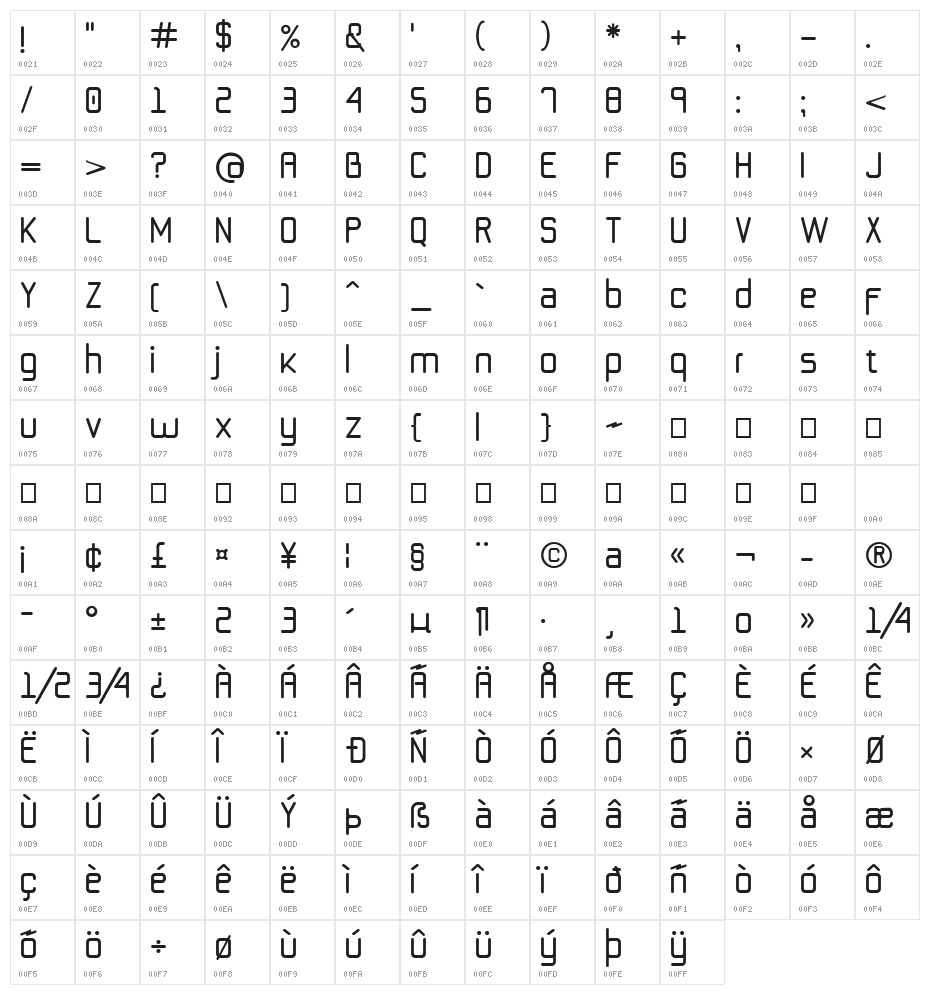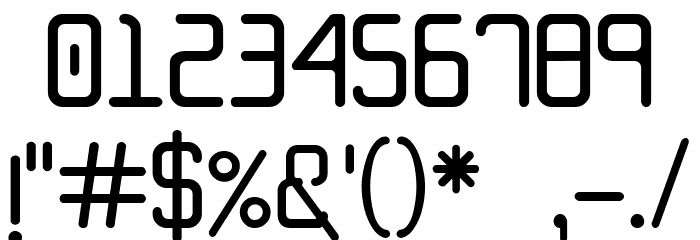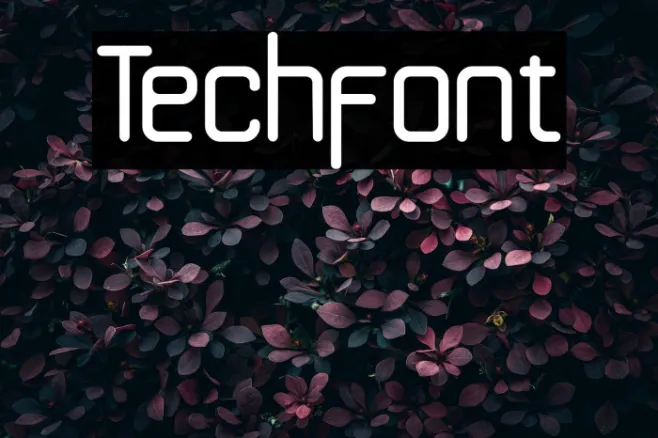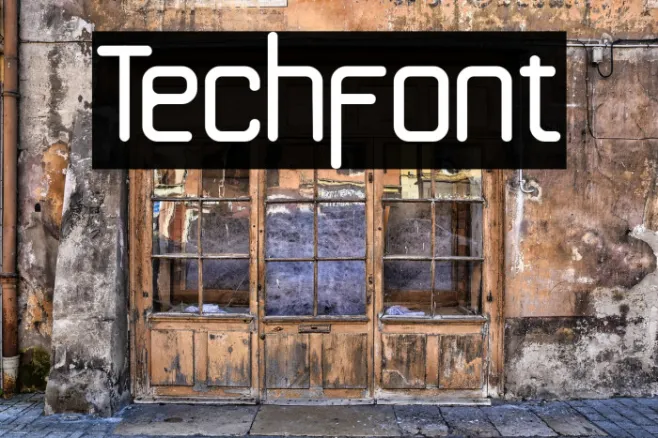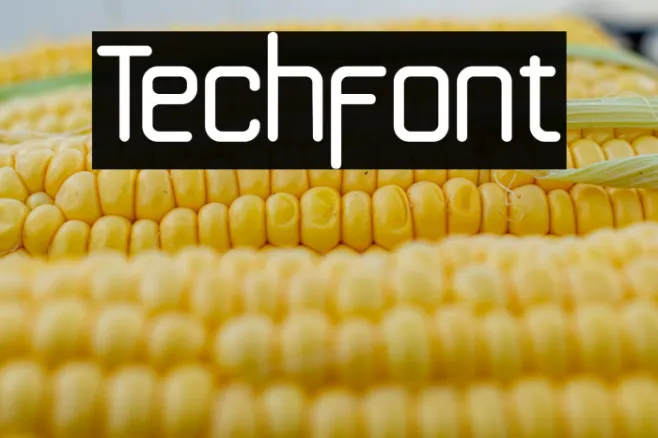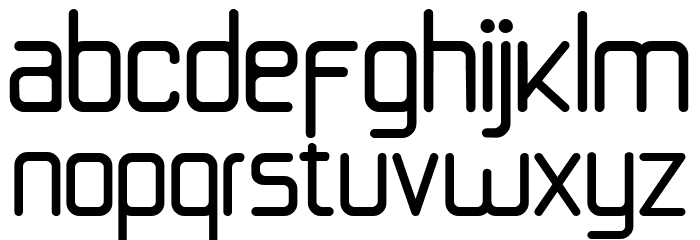
Techfont Font
Techfont Description
This font features a modern, geometric design with rounded edges and a clean, streamlined appearance. The characters are uniform in width, giving it a monospaced feel, though it is not strictly monospaced. The uppercase letters are bold and prominent, while the lowercase letters maintain a consistent height and style, ensuring readability. The numerals are distinct and align well with the overall aesthetic, making them suitable for digital displays. Special characters are designed to match the overall geometric theme, adding to the font's cohesive look. This font is ideal for tech-related projects or futuristic themes, offering a sleek and professional appearance.
| Use Case | Headlines, Logos, Digital displays |
| Proposed Projects | Ideal for tech branding, digital interfaces, futuristic designs, and modern advertising. |